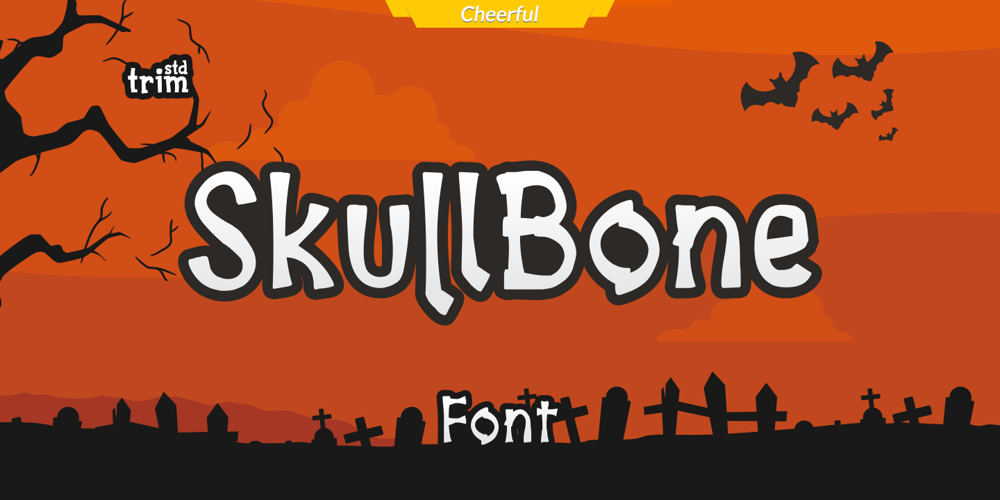
Skullbone
Skullbone font
Skullbone Font Family was designed by Deri Kurnia and published by Trim Studio. Skullbone contains 1 styles and family package options. Skillbone Font is a quirky and unique display font. Add this font to your favorite creative Halloween themed ideas and notice how it makes them stand out!Its perfectly suited for crafter and graphic artist to complete their design such as invitation, advertisement, poster, logo, birthday, product sign, and many more!Skillbone Font also Lightweight, even so contains All Standard glyphs and punctuations